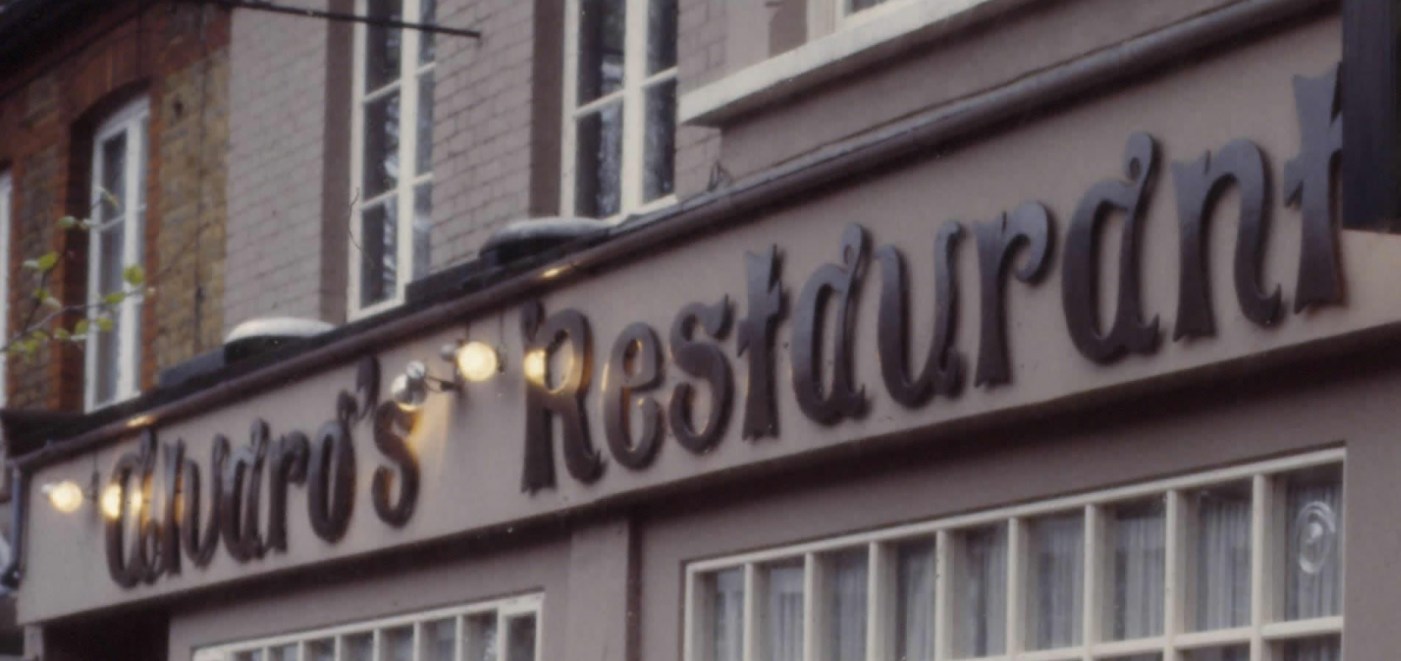
Can anyone identify this? (Alvaros Restaurant)
Hi, I've not had any luck finding this, even something similar would be very helpful
The smaller type and the photo display similar, but not identical typefaces. I've had no luck finding either.
I suspect the sign is custom, but perhaps based on Pretorian, and the smaller type appears to be hand lettered.
Ed F I support Kevin Thompson go with Pretorian it was obviously a close match in someones head when they produced the sign - maybe a slip of the sign makers equipment or some other anomaly. Trouble these days is everyone out there can access software like Fontographer or FontLab and create there own frankenstein fonts or bastardise someone else masterpiece. This current world is awash with millions of different peoples interpretations of such and such a font. Personally I think Praetorian would look better anyway.